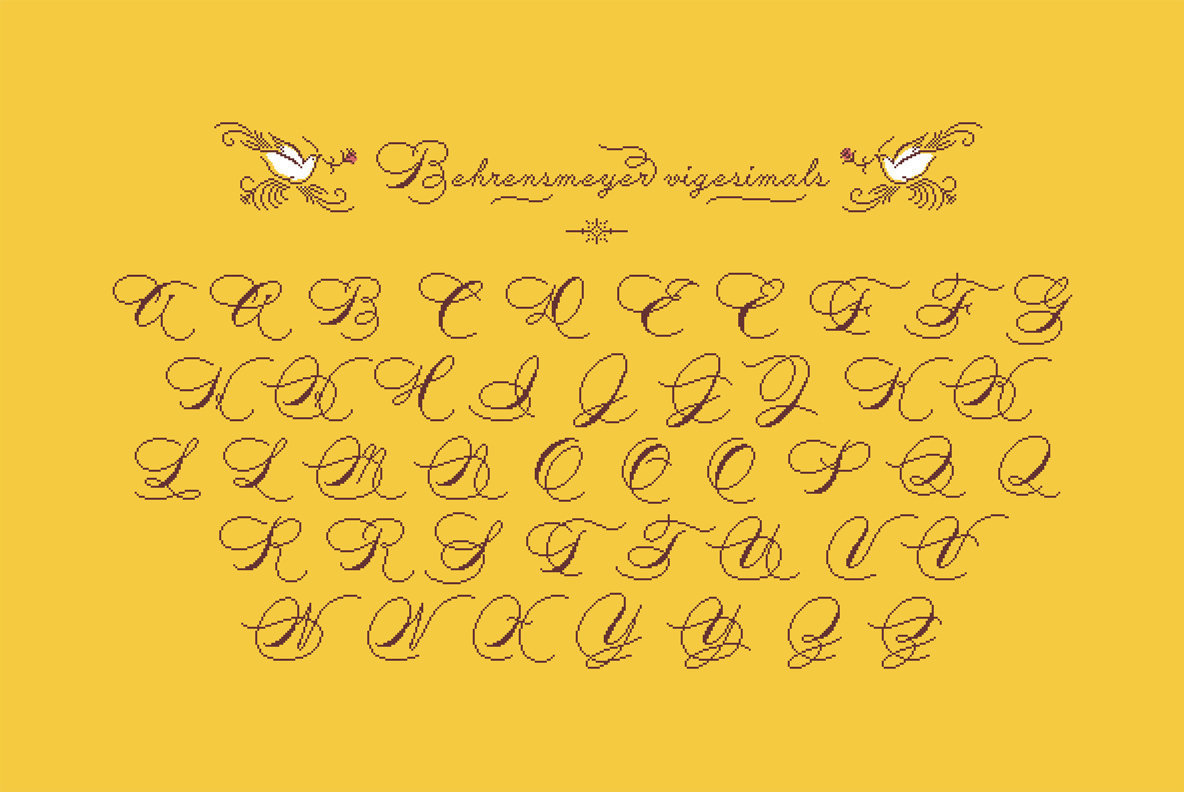
Behrensmeyer Vigesimals Font
Behrensmeyer Vigesimals Font is perfect for academic publication headers, mathematical textbook design, scientific research presentations, university branding materials, technical documentation layouts, and scholarly journal typography. This intellectual typeface works exceptionally well in mathematical software interfaces, statistical report formatting, and educational institution communications.
What makes Behrensmeyer Vigesimals Font so exciting is its sophisticated mathematical precision that seamlessly integrates numerical excellence with typographic elegance. The font features meticulously crafted letterforms with specialized mathematical symbols and perfectly aligned numerical characters that create exceptional clarity in complex academic contexts. Its scholarly aesthetic demonstrates exceptional attention to scientific detail, making it ideal for institutions seeking to convey expertise, precision, and intellectual authority.
Behrensmeyer Vigesimals Font comes in multiple weight variations including Light, Regular, Medium, and Bold styles. The font family also includes comprehensive mathematical symbol sets, specialized numerical formatting, and scientific notation support that enhance academic functionality and provide extensive possibilities for technical design applications.
The font's mathematical construction ensures optimal legibility across complex numerical and formulaic applications while maintaining its distinguished academic appeal. Professional designers appreciate its comprehensive character support and specialized scientific features that ensure accuracy in multilingual academic and technical contexts.
Behrensmeyer Vigesimals Font has become the preferred choice among creative professionals working with academic and scientific brands. Its ability to convey intellectual authority and mathematical precision makes it an invaluable asset for organizations seeking to establish credible connections with scholarly audiences through professional typography.